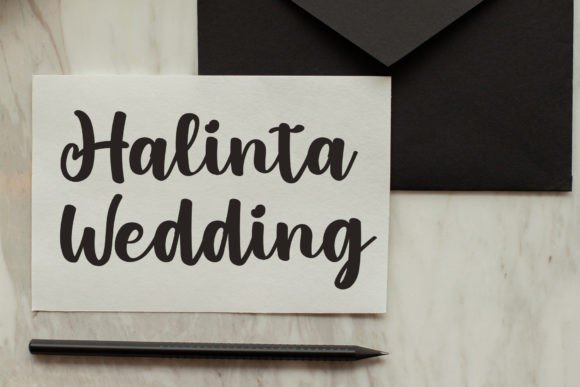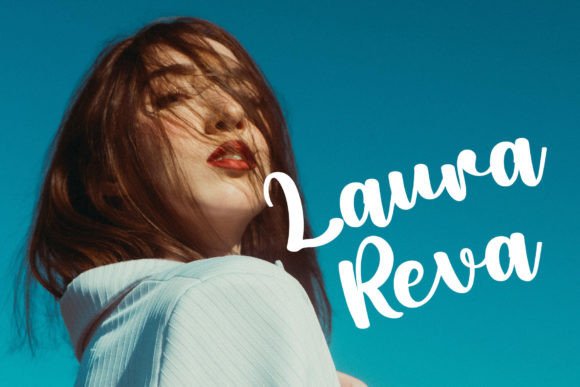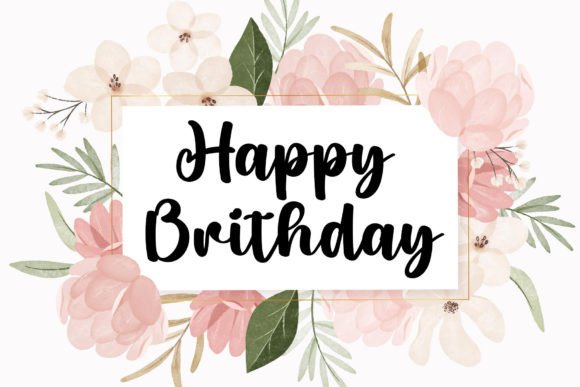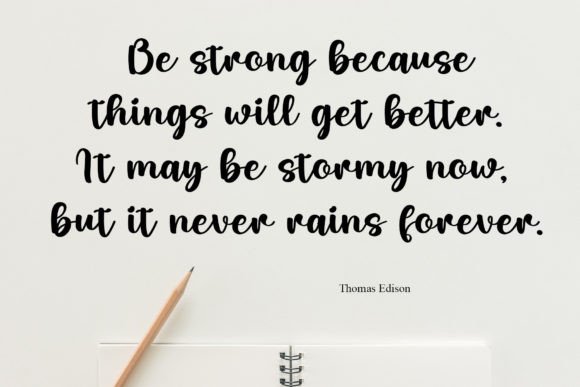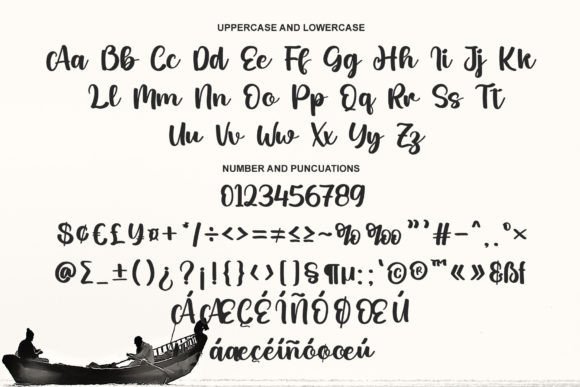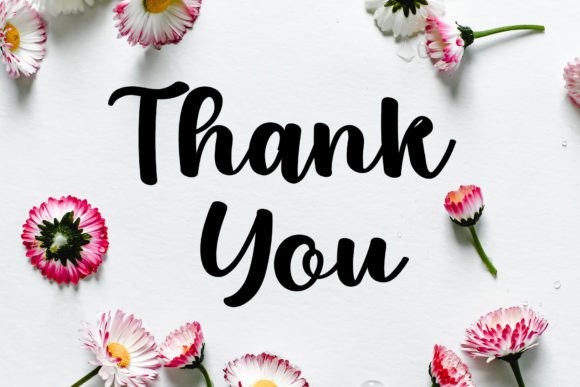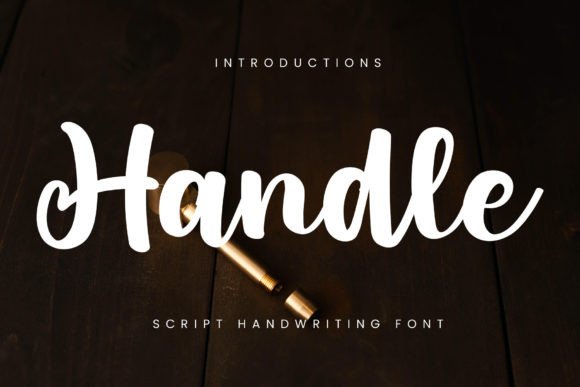
Introducing Handle Font: Elevate Your Designs with Elegance and Flair
Are you on the hunt for a font that exudes sophistication, whimsy, and a touch of timeless charm? Look no further than Handle Font, a delicate, elegant, and flowing handwritten font that’s sure to capture your heart. With its incredibly distinct style, Handle Font is the perfect addition to your favorite projects, allowing you to create spectacular designs that leave a lasting impression.
The Beauty of Handle Font
Handle Font boasts a unique, flowing script that’s reminiscent of traditional handwriting. Its elegant strokes and delicate flair make it an ideal choice for designers and crafters seeking to add a touch of sophistication to their work. Whether you’re creating wedding invitations, branding materials, or social media graphics, Handle Font is sure to elevate your designs to new heights.
What Sets Handle Font Apart?
So, what makes Handle Font so special? For starters, it’s PUA (Private Use Area) encoded, which means you can access all of the glyphs and swashes with ease. This feature allows you to unlock the full potential of the font, experimenting with different combinations to create truly unique designs. With Handle Font, you’ll have the freedom to add flourishes, swashes, and other decorative elements that take your work to the next level.
Handle Font is a versatile font that’s perfect for a wide range of applications. Designers will love using it for:
• Logos and branding materials
• Packaging and product labels
Crafters, on the other hand, will adore using Handle Font for:
• Handmade cards and gift tags
• DIY projects and crafts
• Paper crafting and scrapbooking
• Iron-on designs and custom apparel
Tips for Using Handle Font
To get the most out of Handle Font, here are a few tips to keep in mind:
• Experiment with different sizes and colors to add visual interest
• Combine Handle Font with other fonts for a unique, layered look
• Use the glyphs and swashes to add decorative flourishes
• Don’t be afraid to get creative and try new things!
Why Choose Handle Font?
With so many fonts on the market, why choose Handle Font? Here are just a few reasons:
• Unique, hand-crafted design that’s sure to stand out
• PUA encoded for easy access to glyphs and swashes
• Perfect for a wide range of applications, from design to crafting
• Easy to read and visually appealing